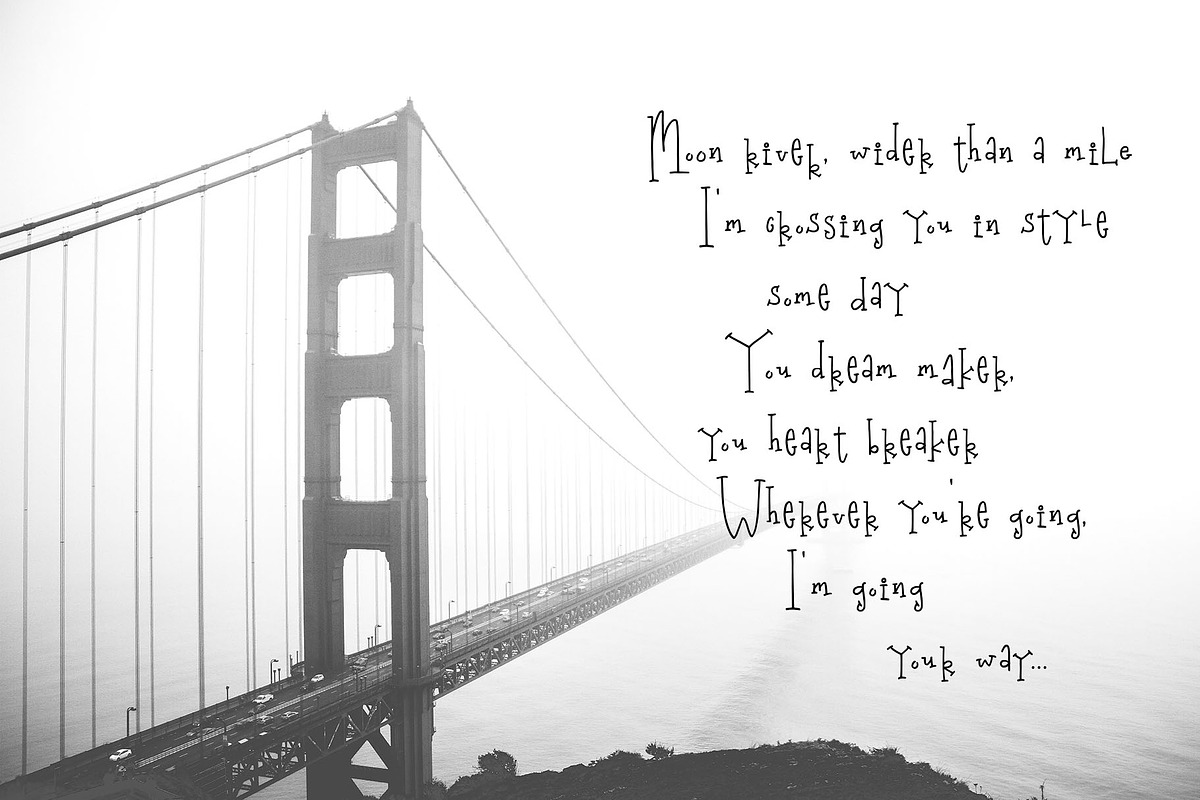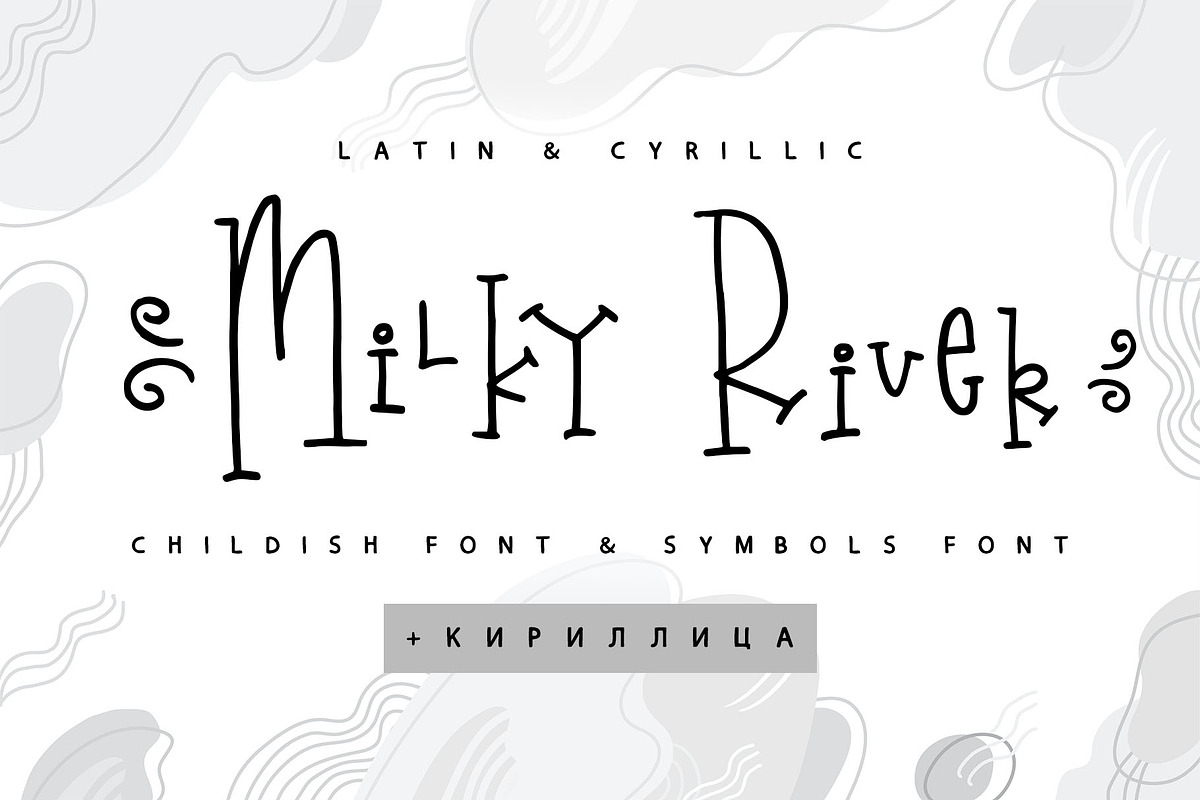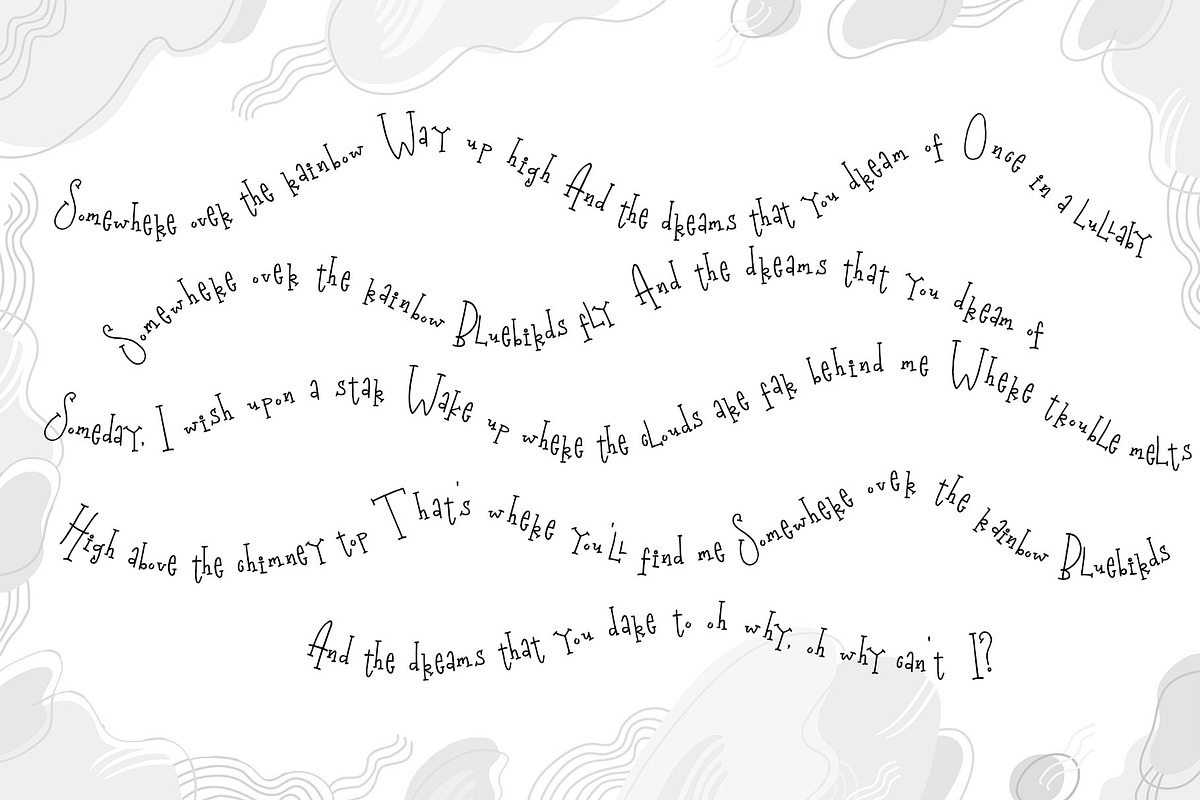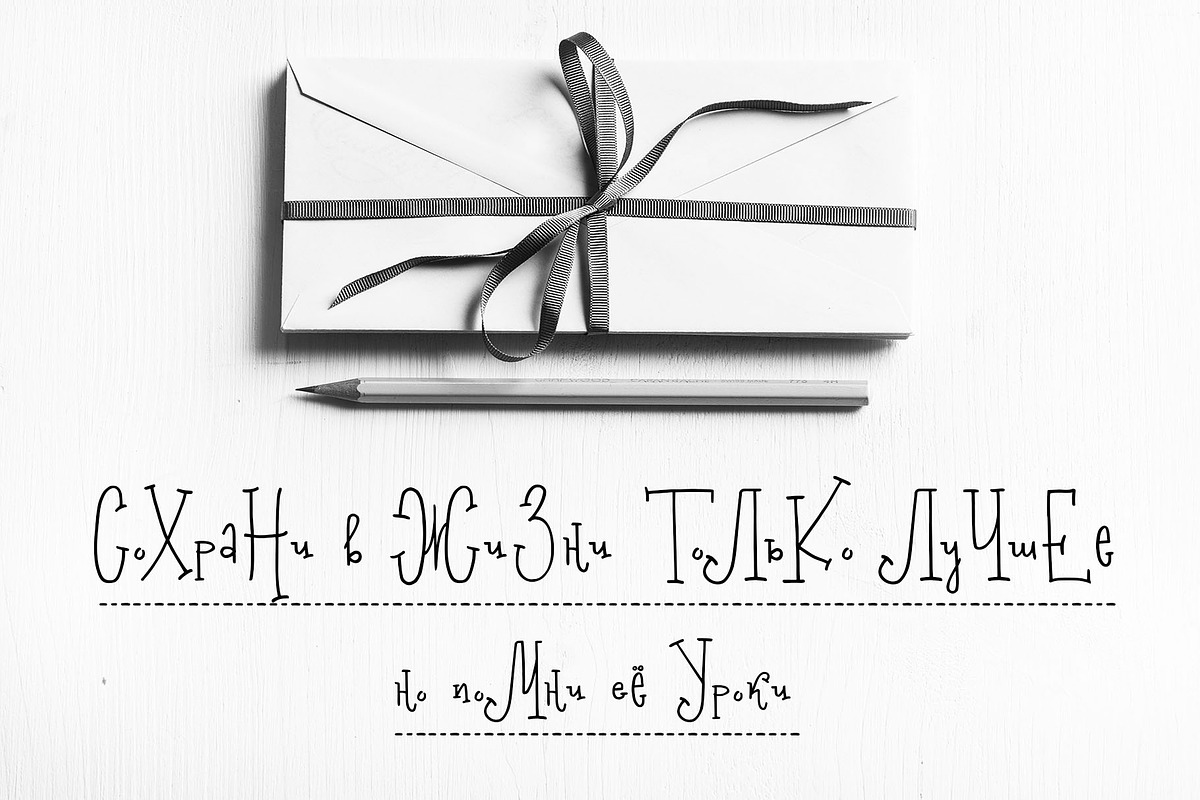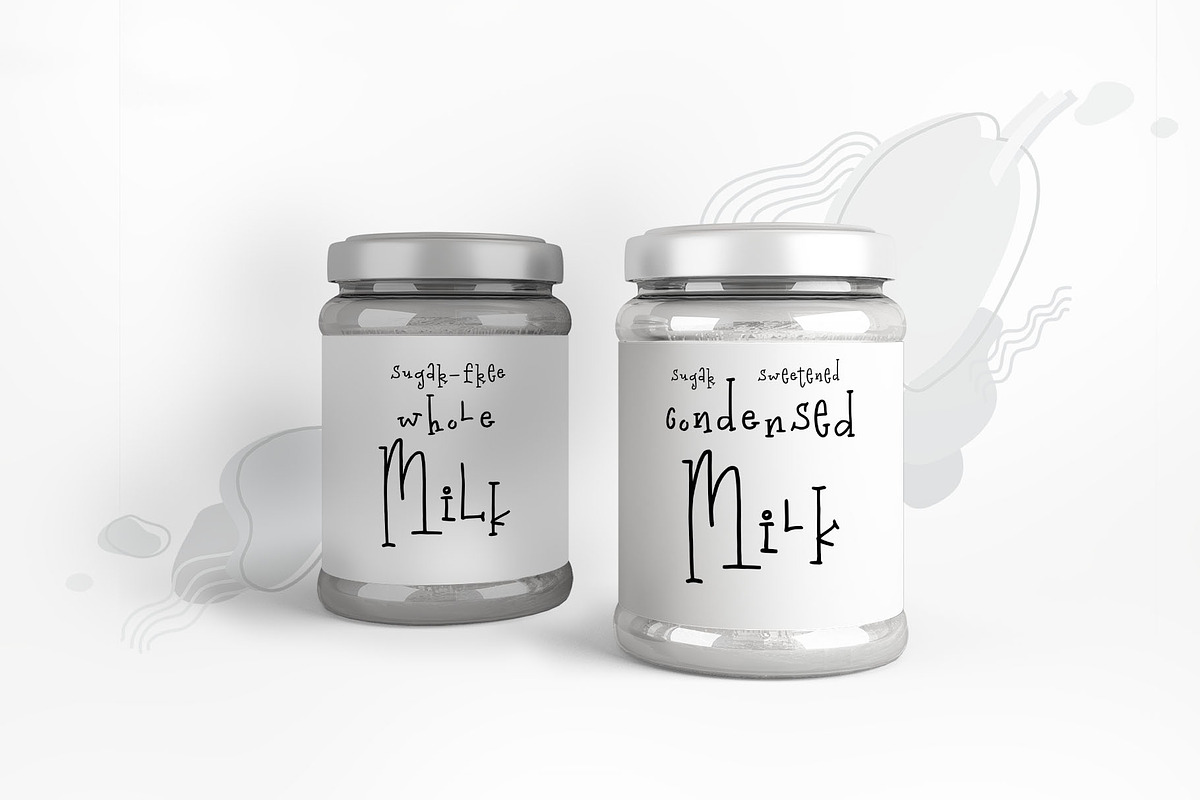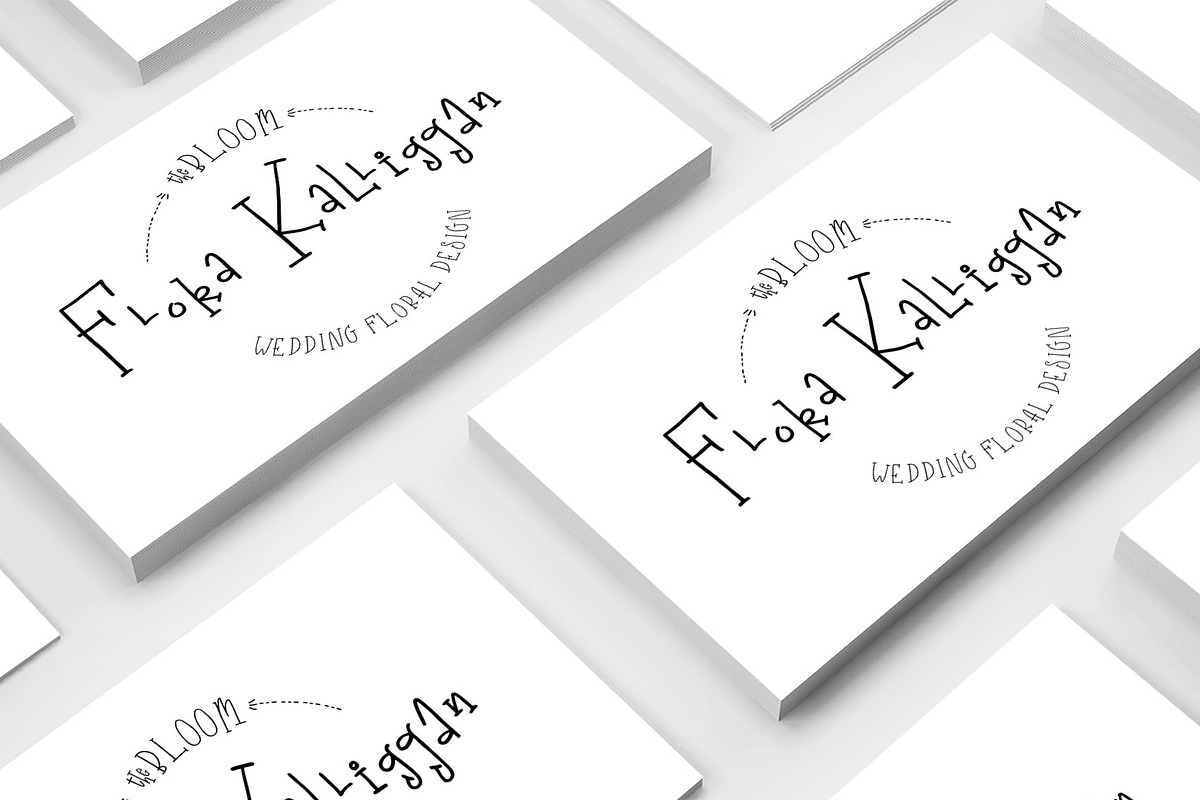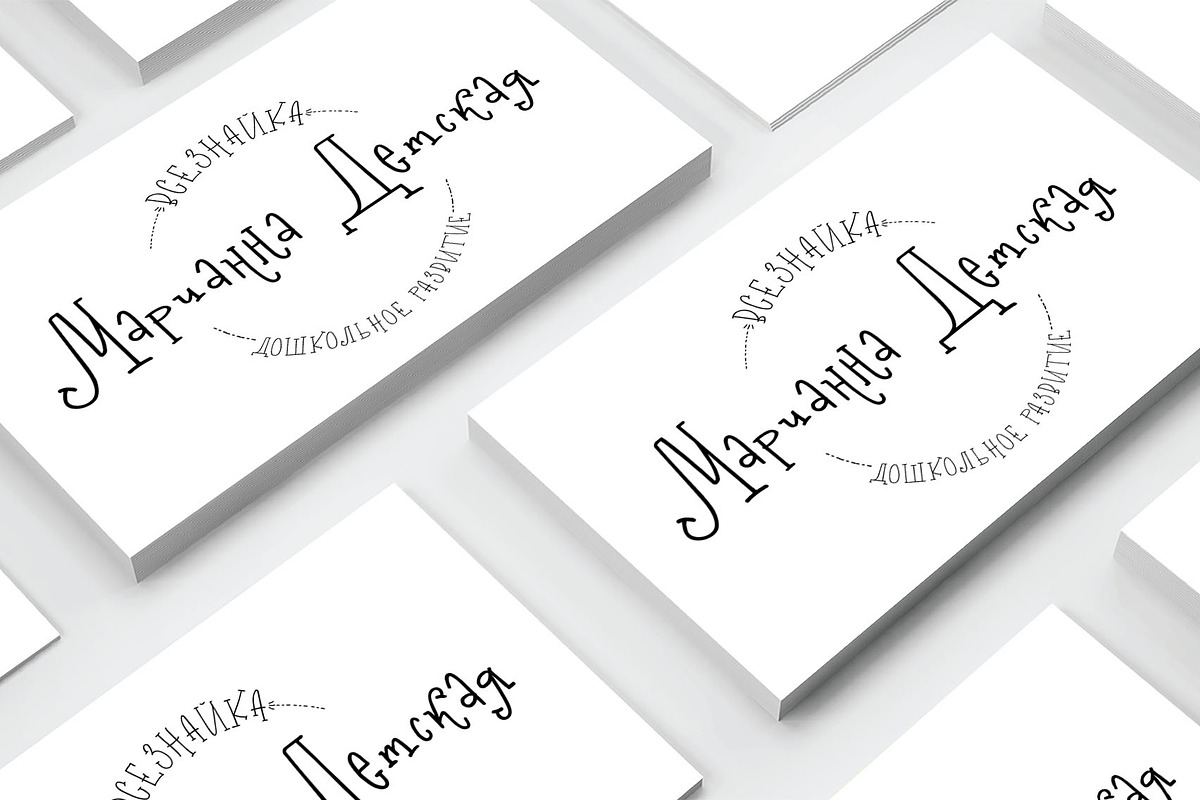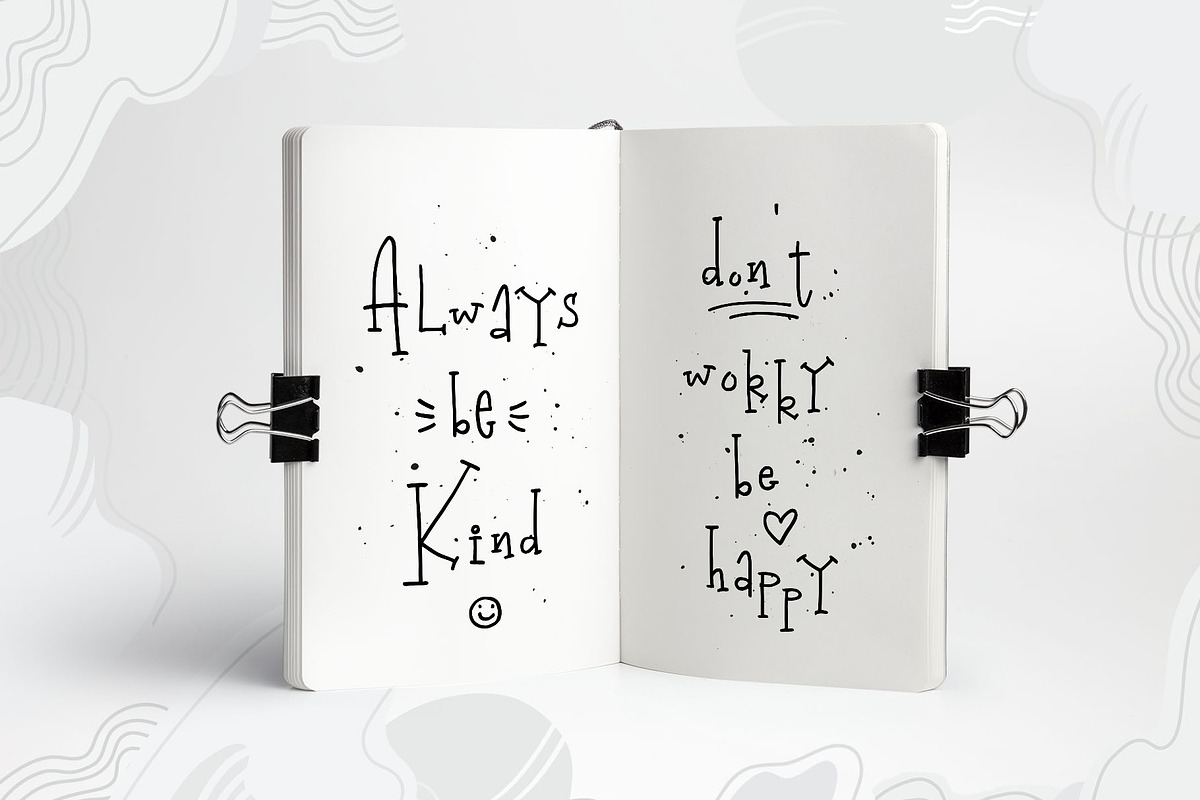
Milky River Cyrillic playful kids font
Milky River Cyrillic playful childish font contains the uppercase and main & alternative lowercase letters. And also the full set of double letters a large range of numerals and punctuation.
The Milky River font will be perfect for use in all your fun design projects be it logos, labels, packaging design, blog headlines. Also, it will look great on mugs, cards, kids' books headlines, or other typographic projects.
Milky River Cyrillic playful childish cute font contains the Cyrillic glyphs too.
The Milky River symbols is an additional font with 36 hand-drawn doodles, catchwords, arrows, and swashes and can help to make your design more original. Combine and arrange swashes and illustrations to create your own designs and make borders, frames, dividers, logos, and more (just use a-z and 0-9 keys in the included Milky River symbols font). A different symbol is assigned to every uppercase or lowercase standard character so you do not need graphics software just simply type the letter you need.
Support for 31 languages: Latin glyphs for Afrikaans, Albanian, Basque, Bosnian, Catalan, Danish, Dutch, English, Estonian, Faroese, Filipino, Finnish, French, Galician, Indonesian, Irish, Italian, Malay, Norwegian Bokmål, Portuguese, Slovenian, Spanish, Swahili, Swedish, Turkish, Welsh, Zulu.
And Cyrillic glyphs support for Russian, Belorussian, Bulgarian, Kazakh and Ukrainian languages.
- Milky River Cyrillic playful childish font contains the uppercase and main & alternative lowercase letters.
- And also the full set of double letters a large range of numerals and punctuation.
- A different symbol is assigned to every uppercase or lowercase standard character so you do not need graphics software just simply type the